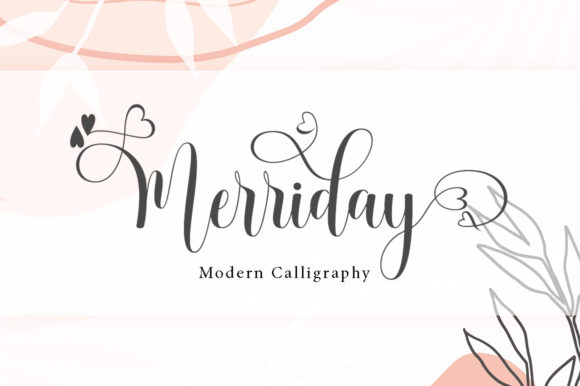
Step into the world of Merriday Font – where elegance and warmth intertwine to create a symphony of beauty. This captivating script font, crafted with the utmost love and care by Romie Creative, is your key to unlocking a world of heartfelt expressions and heartfelt designs.
Merriday Font's charm lies in its effortless ability to evoke a sense of home, hearth, and heartwarming connections. Its gentle curves and organic flow mimic the strokes of a skilled calligrapher, capturing the essence of handwritten letters penned with love. Each character exudes a touch of playfulness, a dash of whimsy, and an abundance of warmth, making it the perfect choice for adding a personal touch to your creative endeavors.
Imagine your wedding invitations adorned with Merriday Font's graceful swirls, promising a celebration filled with joy and heartfelt moments. Picture your stationery art infused with its elegant touch, transforming ordinary notes into cherished keepsakes. Envision your social media posts blooming with its charming presence, captivating your audience with messages that resonate. And let your greeting cards blossom with Merriday Font's warmth, carrying your heartfelt wishes far and wide.
With Merriday Font, you'll discover countless ways to express your creativity and connect with others. Its versatility extends beyond the confines of paper, seamlessly adapting to digital realms. Craft enchanting logos that exude a touch of handwritten authenticity, design websites that radiate warmth and personality, and create social media content that captivates and inspires.
Merriday Font is more than just a collection of characters; it's an invitation to embark on a creative journey filled with love, laughter, and heartfelt connections. Let its enchanting strokes guide your imagination, transforming your designs into captivating expressions of your soul.